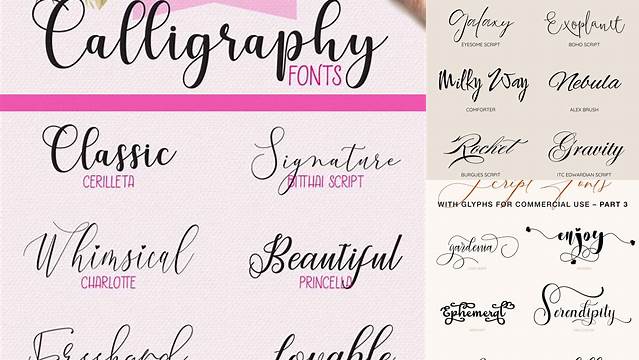
Free Handwriting Fonts For Commercial Use
Hey guys! Are you on the hunt for some awesome handwriting fonts that you can use for your projects, even if you're planning on selling them? Well, you've come to the right place! Finding handwriting fonts free commercial can feel like searching for a needle in a haystack, but trust me, they're out there. In this article, we'll dive deep into the world of free commercial handwriting fonts, helping you discover some amazing options and giving you the lowdown on how to use them without getting into any legal trouble. We'll cover where to find them, what to look out for, and how to make sure you're using these fonts the right way. So, whether you're a seasoned designer, a budding entrepreneur, or just someone who loves a good font, let's get started!
Understanding Free Commercial Handwriting Fonts
Alright, first things first: what exactly do we mean by "free commercial handwriting fonts"? Basically, it's a font designed to mimic handwriting that you can use for your business or for projects that you intend to make money from, without having to pay a licensing fee. Sounds amazing, right? But here's the kicker: not all free fonts are created equal. Some are only free for personal use, which means you can't use them on anything that generates income. Others might be free for both personal and commercial use, meaning you can use them in your business, on your website, in marketing materials, or even on products you sell. The devil is in the details, so it's super important to check the font's license before you start using it. Always, always read the fine print!
Handwriting fonts add a personal touch to your designs, making them feel more human and less generic. They can be perfect for a variety of projects, from logos and branding to social media graphics, packaging, and even website headers. Think about a bakery wanting to create a logo β a handwritten font can give it a warm, inviting feel. Or a blogger wanting to create a unique look for their website β a handwritten font can make their content stand out. The possibilities are pretty much endless. One of the biggest benefits of using handwriting fonts is that they can instantly make your design more approachable and friendly. People are naturally drawn to handwritten elements because they feel more authentic and less corporate. This can be especially effective if you're trying to build a personal brand or connect with your audience on a deeper level. Plus, handwritten fonts can be a fantastic way to add personality to your designs, helping them stand out from the crowd.
However, it's also important to use handwriting fonts wisely. Too much of a good thing can be a bad thing, right? Overusing a handwritten font can make your design look messy or unprofessional. It's often best to use them sparingly, perhaps for headings, callouts, or accents. Balance is key! Pairing a handwritten font with a clean, easy-to-read font for body text is usually a good strategy. This way, you get the best of both worlds: the personality of the handwritten font and the readability of a more traditional font. Also, remember that the license is the most important part. Don't ever assume a font is free for commercial use just because you found it online. Double-check the license to avoid any legal headaches down the line. Sites like Google Fonts, DaFont, and Font Squirrel are popular starting points, but even there, you need to confirm the license for each individual font. If the license isn't clear, it's always best to err on the side of caution and find a different font or contact the font designer for clarification.
Other Resources
Besides the three main ones I mentioned, keep your eyes peeled for other sites like Behance, Creative Market (some freebies), and even individual designers who offer free commercial handwriting fonts. Social media can also be a great place to discover fonts. Follow font designers, design blogs, and industry influencers to stay updated on new releases. When you find a font on a less-known website, always verify its licensing. Check the website's terms of service, contact the designer, or search online for the font's license to ensure you're using it legally. Be extra cautious when downloading fonts from unfamiliar sources. It's always better to be safe than sorry!
Tips for Using Handwriting Fonts Effectively
Okay, so you've found some handwriting fonts β awesome! Now, how do you use them to make your designs shine? Here are some tips.
Choose the Right Font
Not all handwriting fonts are created equal. Some are elegant and refined, while others are more casual and playful. Choose a font that matches the tone and style of your project. For instance, if you're designing a logo for a luxury brand, you might choose a more elegant script font. If you're designing a poster for a children's event, you might go for a more whimsical font. Consider the personality you want to convey. Does it need to feel sophisticated, friendly, or edgy? The font you choose can play a big role in shaping that perception. Look at the font's weight, style, and overall appearance. Does it suit your project's needs? Does it complement the other design elements? Experiment with different fonts to see which one works best for your specific project.
Conclusion: Embrace Handwriting Fonts, Responsibly!
So, there you have it, guys! Finding handwriting fonts free commercial is totally doable. By understanding the licenses, knowing where to look, and using them wisely, you can add a personal and unique touch to your designs. Always remember to double-check those licenses, be mindful of readability, and respect the designers' rights. With a little bit of effort, you can find some amazing handwriting fonts that'll help you create stunning designs and projects. Happy designing!